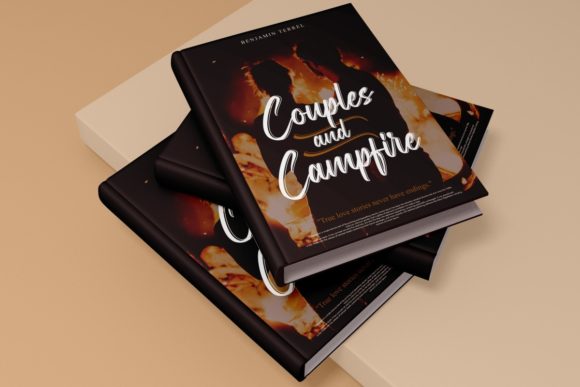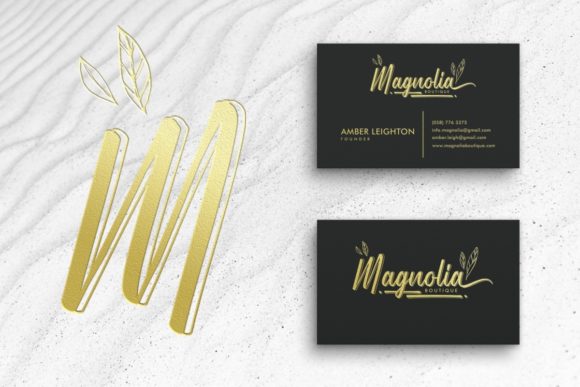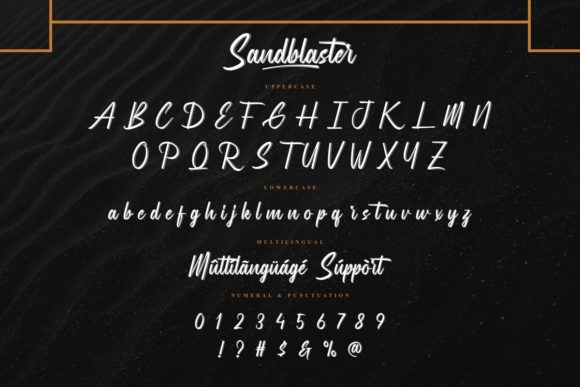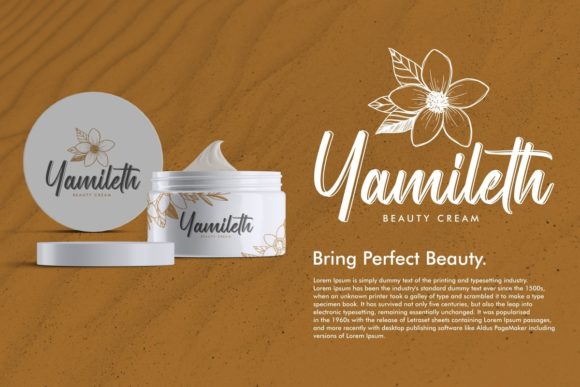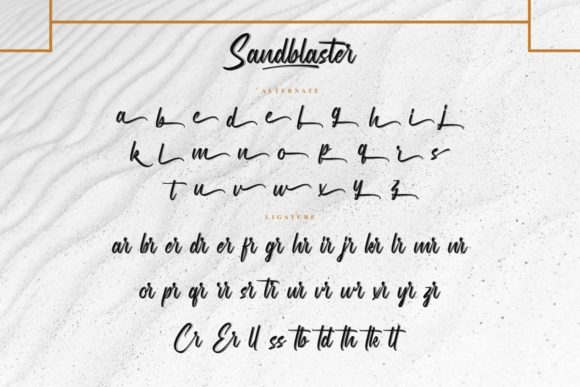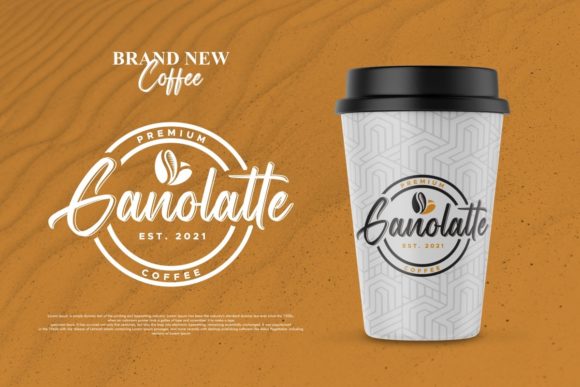
Introduction to Sandblaster Font
Sandblaster is a modern brush script font that can add a personal touch to any crafty idea.
Use if dor projects that need a stylish and handmade feel, such as invitations, personal branding, birthday cards, or more This font is PUA encoded which means you can access all of the glyphs and swashes with ease.